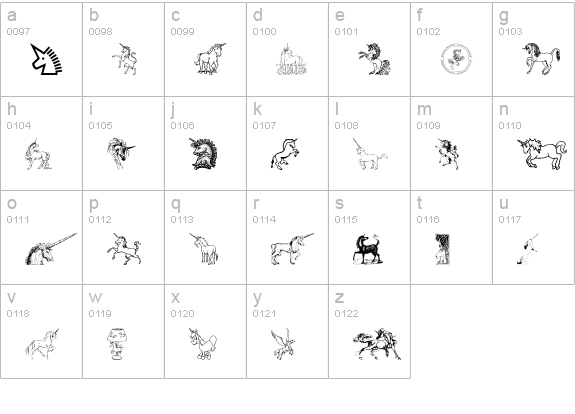
Gail's Unicorn Font Details
Introducing Gail's Unicorn font, a whimsical and enchanting typeface that will transport you to a magical world of imagination. With its graceful curves and delicate details, this font captures the essence of the mythical creature it is named after. Gail's Unicorn font is perfect for adding a touch of charm and wonder to any design project. Whether you're creating invitations for a fairytale-themed event, crafting a children's book cover, or designing a dreamy logo, this font will instantly elevate your creations with its ethereal beauty. What makes Gail's Unicorn font even more special is that it is available for free download at FontsMarket.com. Yes, you read that right - this captivating font can be yours at no cost. Say goodbye to expensive font licenses and hello to unlimited creative possibilities. With Gail's Unicorn font, your designs will stand out from the crowd, capturing hearts and sparking joy. Its versatility allows it to be used in various contexts, from digital media to print materials. Its unique character set ensures that every letter is a work of art, adding a touch of whimsy to your words. So why wait? Download Gail's Unicorn font today and embark on a magical journey of creativity. Let your imagination run wild and watch as your designs come to life with every stroke of this enchanting typeface. Remember, the best things in life are free, and Gail's Unicorn font is no exception. Get ready to captivate your audience with the allure of this majestic font.